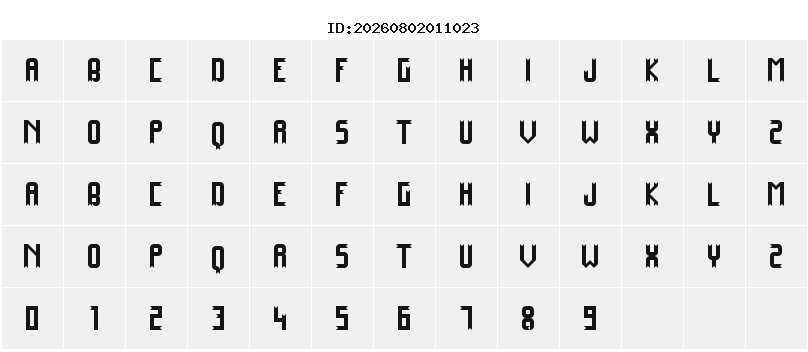
• Font Name: Mayangsari
• Font ID: FontStruct Mayangsari
• Full Font Name: Mayangsari Regular
• PostScript Name: Mayangsari
• Character Count: 78
• Copyright: Copyright Muhammad Rizky Ariesto 2014
• Designer: Muhammad Rizky Ariesto
• Description: ‚ÄúMayangsari‚Äù was built with FontStruct
Mayangsari.ttf is a modern, elegant sans-serif font designed for ultimate readability and visual harmony. Perfect for branding, headlines, web design, and print materials.